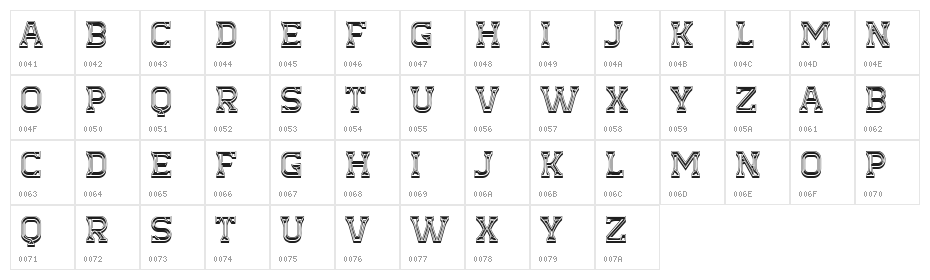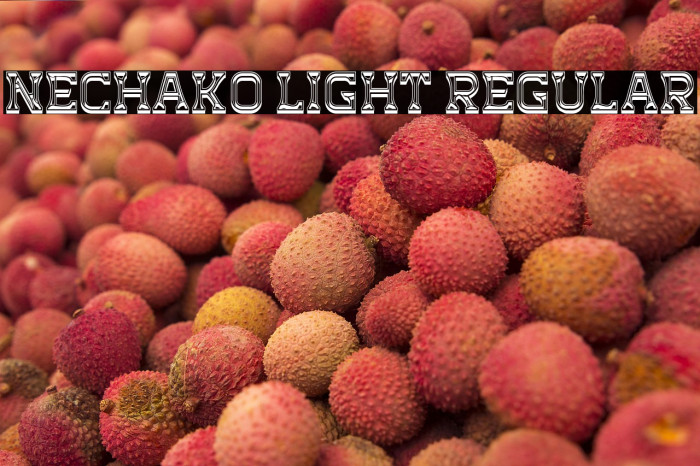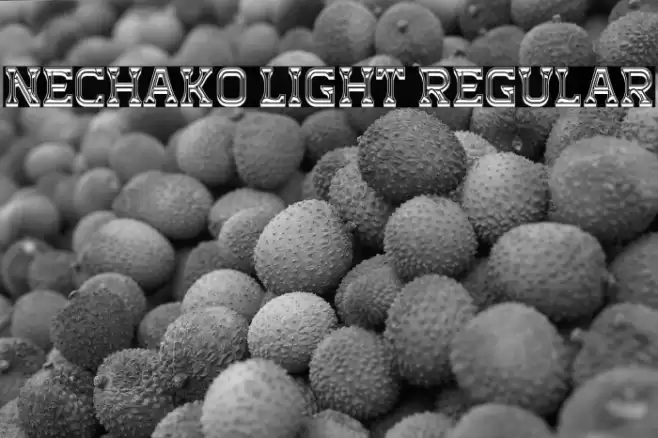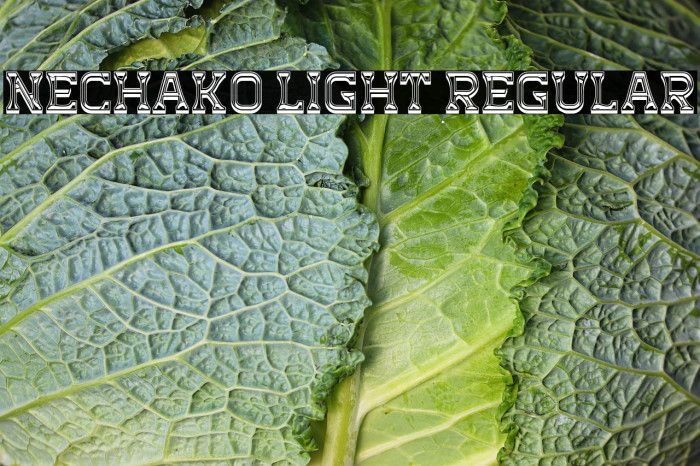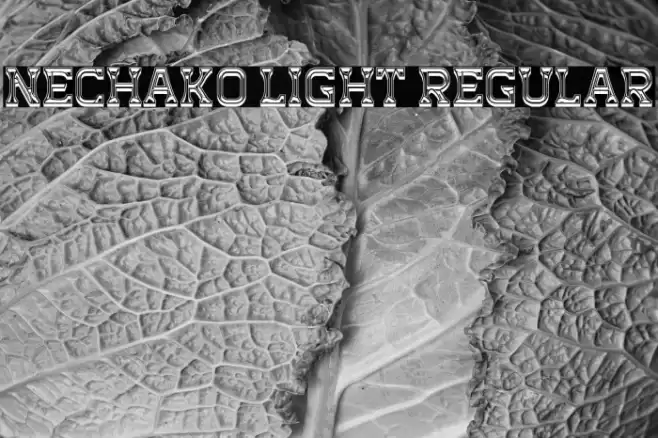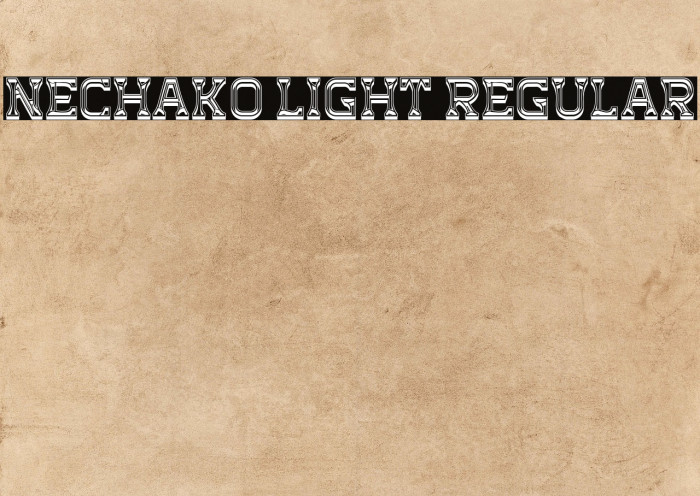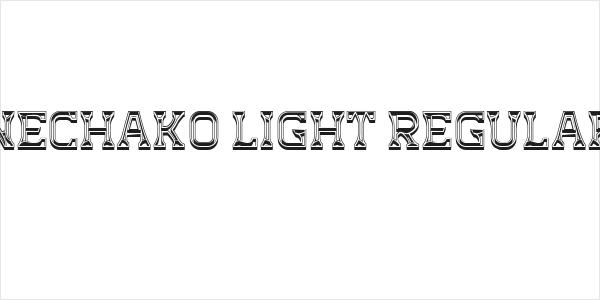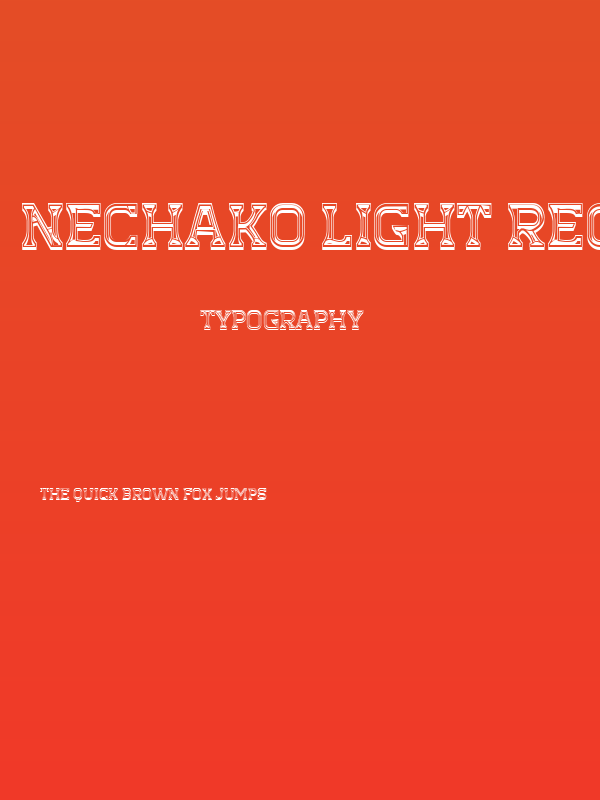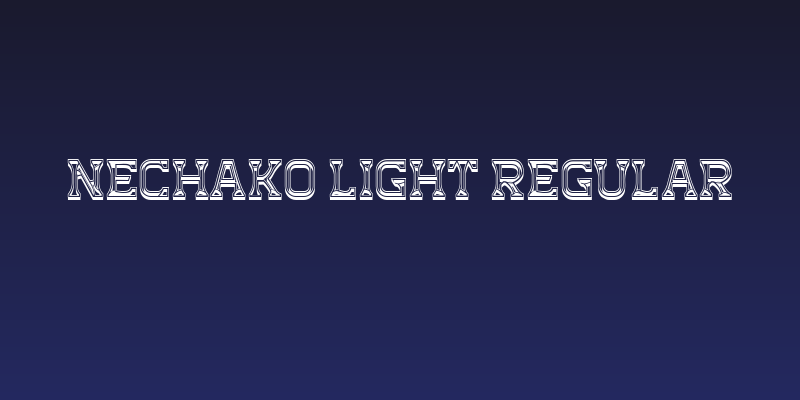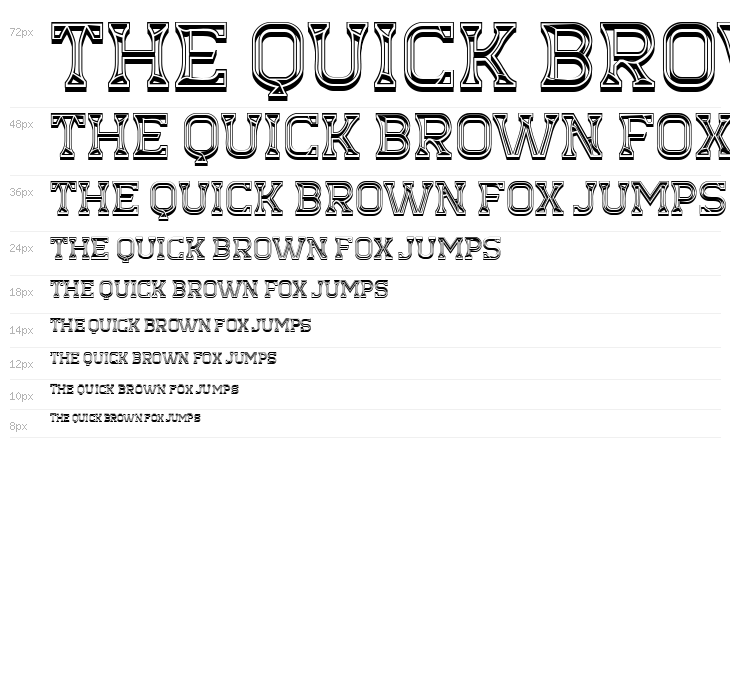
Nechako Light Regular Font
Nechako Light Regular Description
This font features a bold and decorative style with a three-dimensional effect created by its layered, shadowed design. The characters are uppercase only, with a strong geometric structure and sharp angles. The inner lines and shadows give it a dynamic and eye-catching appearance, making it suitable for impactful designs. The font's unique style is reminiscent of vintage signage or retro posters, offering a sense of depth and dimension. Its boldness and intricate detailing make it stand out, ensuring that any text set in this font will capture attention.
| Proposed Projects | Ideal for poster designs, branding projects, retro-themed graphics, and signage. |